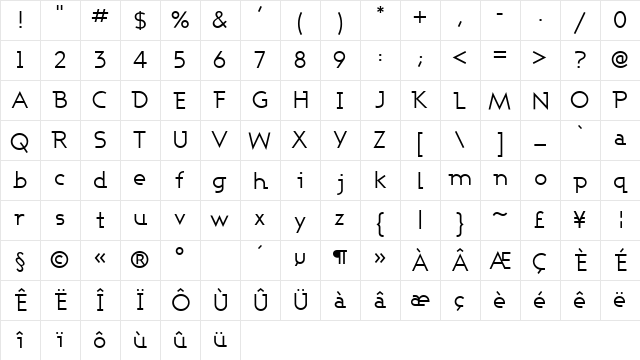
AshbyGL Regular
| Copyright | Used by Galeries Lafayette, this is based on ASHBY by Woodard at Apostrophic L'ab. Modifications include differences in character complements, and in glyph shapes and sizing. |
Design Context for AshbyGL Typeface
AshbyGL is a composed and adaptable typeface that performs quietly and consistently across a wide range of design contexts.